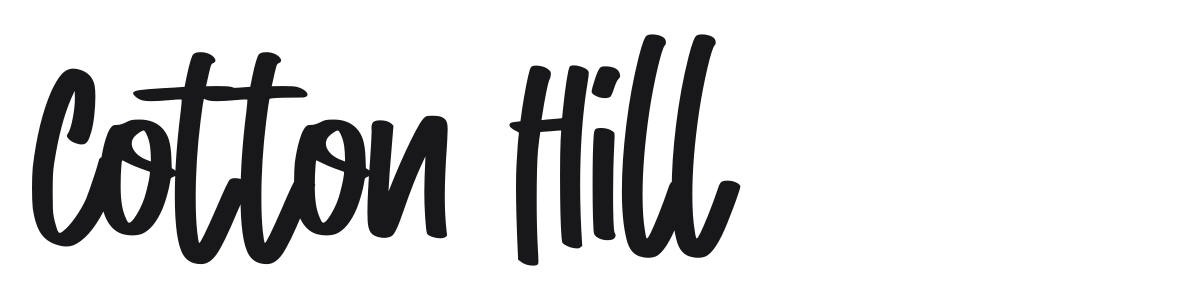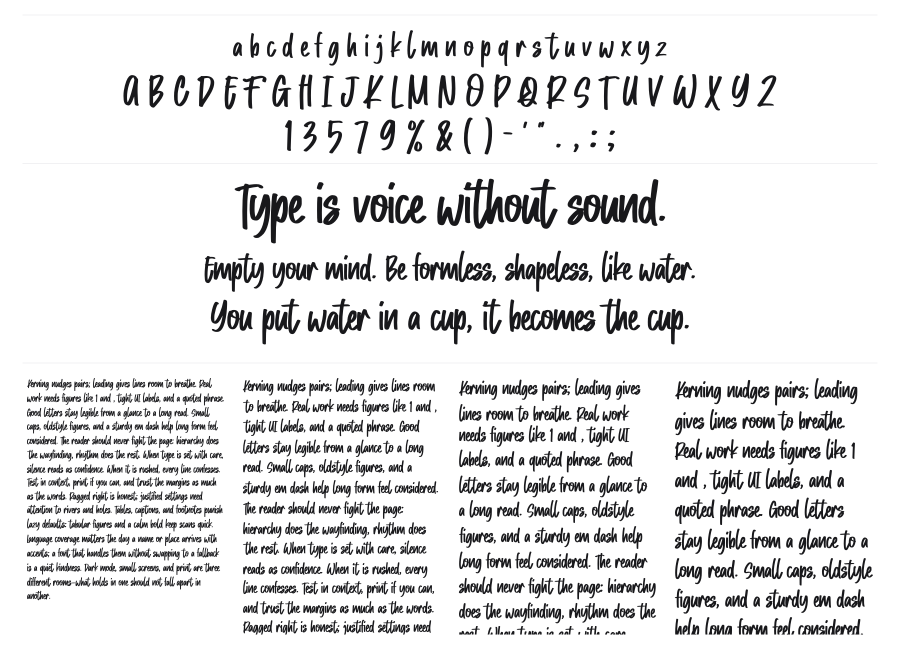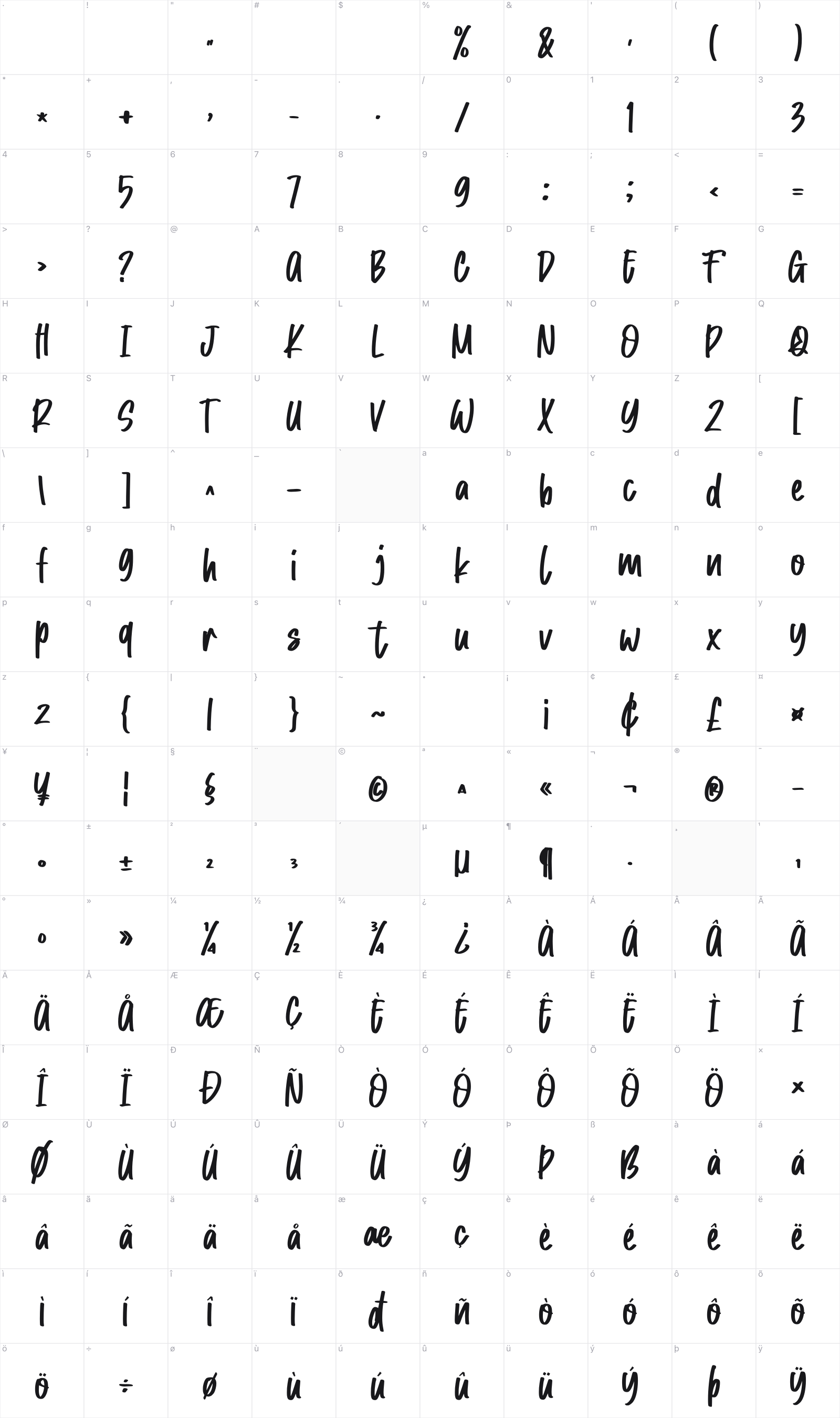
Cotton Hill
Cotton Hill is a bold casual script from Gassstype Studio with the confident, loose energy of hand-lettered brush marker work. The thick strokes and bouncy rhythm give it warmth and immediacy without tipping into childish territory. It works well at headline sizes for packaging, social media graphics, and brand identities with a friendly, approachable tone.